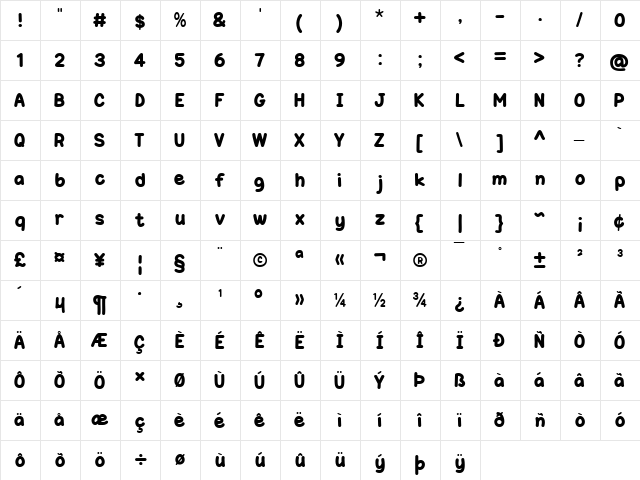
One Trick Pony Regular
Design Context for One Trick Pony Typeface
One Trick Pony offers clean, dependable letterforms without strong stylistic allegiance, making it a practical choice for designers who need flexibility.
Pro Tip: Use One Trick Pony in both headline and body roles to test its range before committing to a single application.